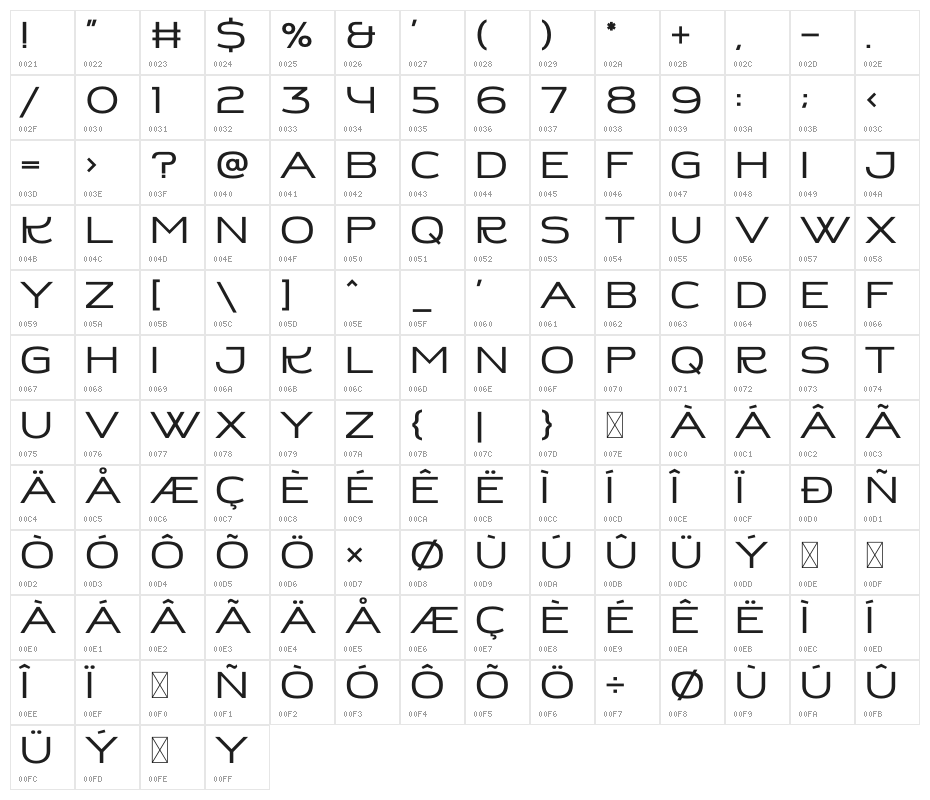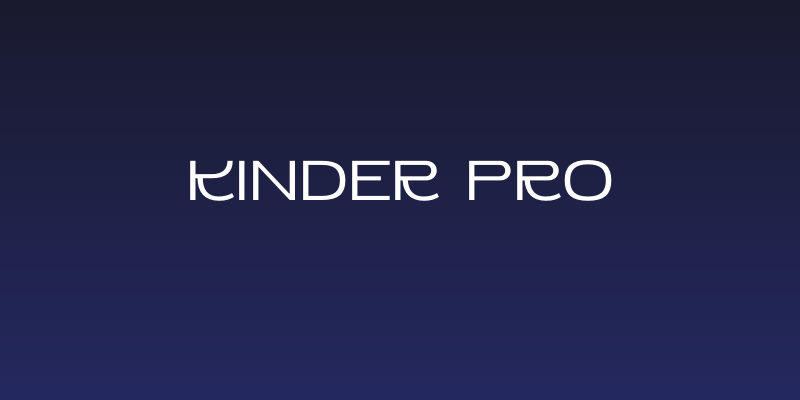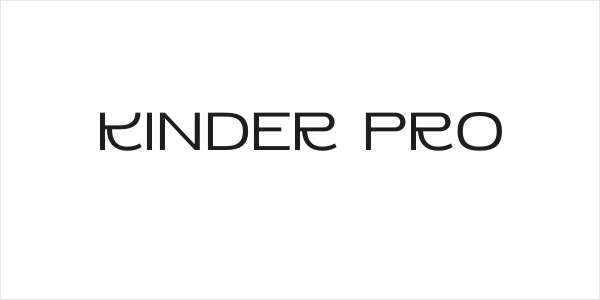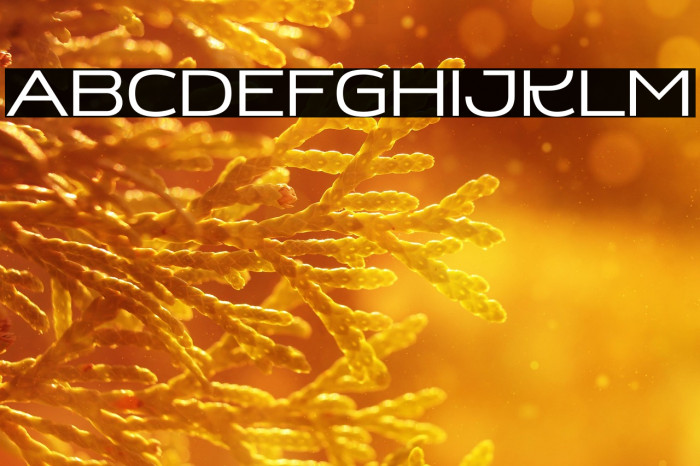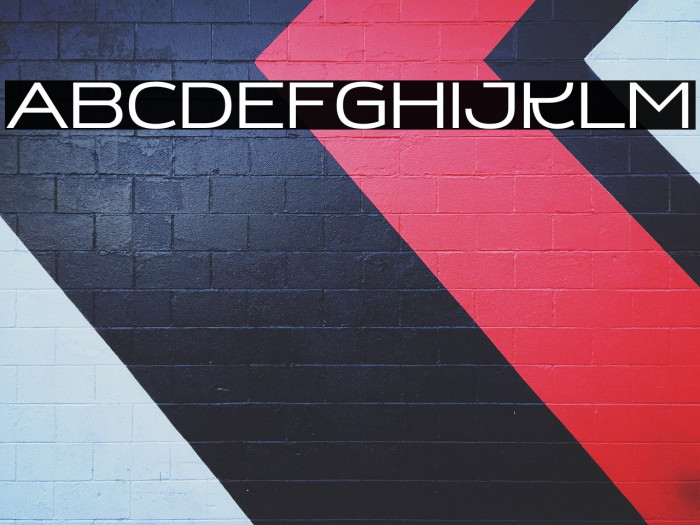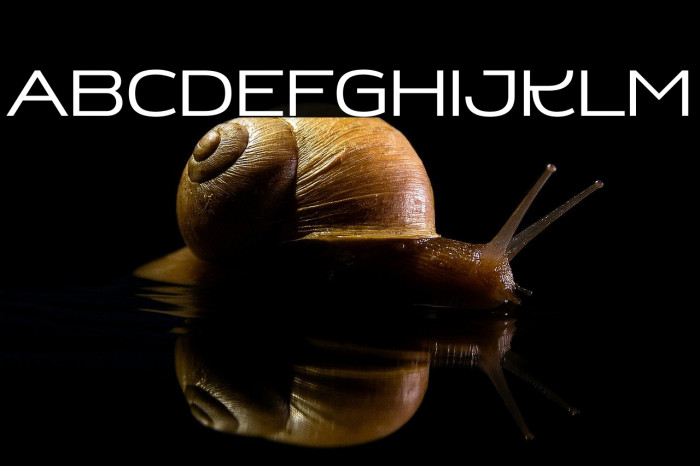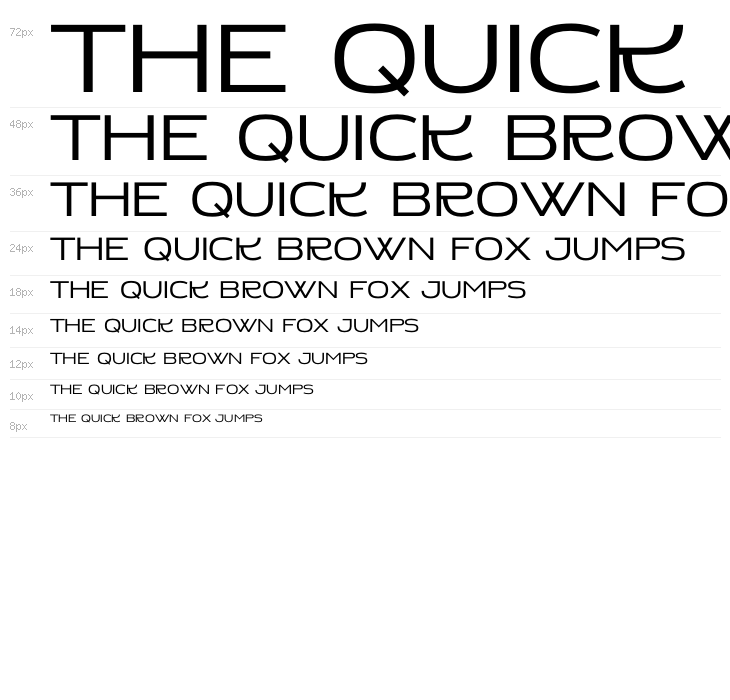
KINDER PRO Font
KINDER PRO Description
This font features a modern and sleek design with a geometric structure. The characters are clean and minimalistic, showcasing a uniform stroke width that contributes to its contemporary appearance. The uppercase and lowercase letters maintain a consistent style, with rounded edges and a slight curvature that adds a touch of softness to the overall design. The numerals are well-proportioned, aligning seamlessly with the alphabetic characters. Special characters are included, maintaining the same design ethos, ensuring versatility across various applications. The font's clarity and precision make it suitable for digital and print media, offering excellent readability.